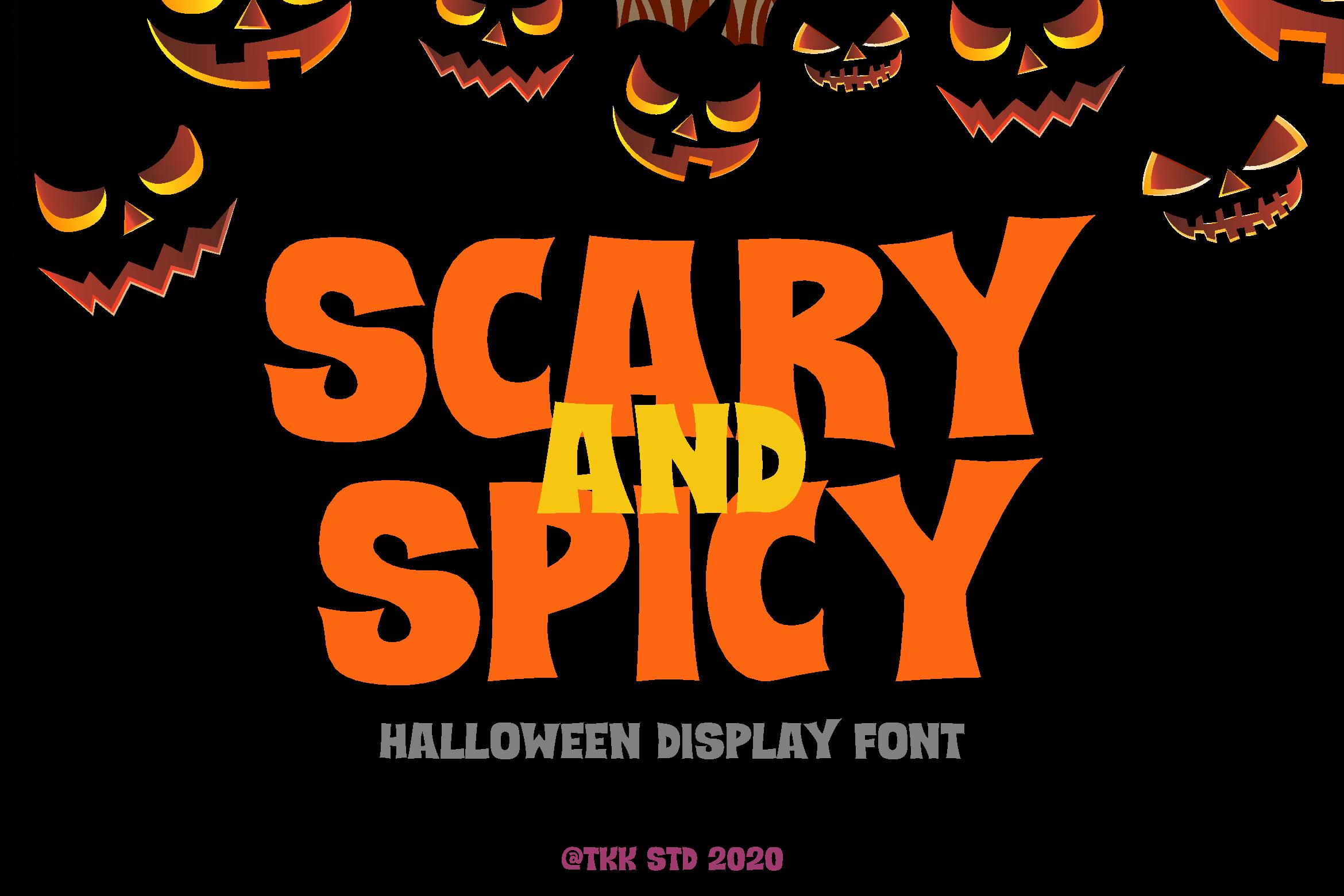
Scary and Spicy Font Description
Scary and Spicy is an incredibly unique display font. Masterfully designed to become a true favorite, this font has the potential to bring each of your creative ideas to the highest level!
Fall in love with its playful style and use it to create beautiful stationary art, eye-catching social media posts, and much more!